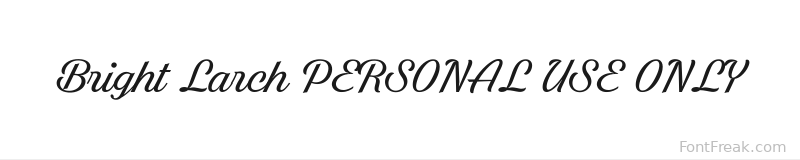
Bright Larch PERSONAL USE ONLY
Bright Larch PERSONAL USE ONLY by Mans Greback is a stunning script font that captures a whimsical and elegant aesthetic. This font features a unique blend of fluid, cursive strokes, which lend it a sense of personality and charm. The stroke weight varies, creating a dynamic contrast that adds visual interest. The spacing is thoughtfully designed to enhance readability while maintaining an artistic flair, making it suitable for a variety of creative applications. Decorative elements, such as the graceful curves and flourishes, make this font stand out and provide a touch of sophistication.
This font is ideal for several specific use cases. It shines in wedding invitations, where its romantic style can evoke emotions and set the tone for the special day. Bright Larch can also elevate movie posters, giving them a unique character that captures the audience's attention. Additionally, it works wonderfully for restaurant menus, adding an upscale touch that can entice diners. Content creators will find it perfect for social media graphics, where its eye-catching design can boost engagement. Graphic designers looking for a distinctive typeface will appreciate its versatility across various projects.
The target audience for Bright Larch includes graphic designers, small business owners, and content creators who are seeking a font that provides both elegance and personality. This font allows users to express creativity while enhancing their brand’s visual identity.
What truly sets the Bright Larch PERSONAL USE ONLY font apart is its ability to combine elegance with a playful spirit. It invites creativity and inspires users to explore new design possibilities. For anyone looking to add a touch of charm to their projects, the Bright Larch PERSONAL USE ONLY font free download offers an excellent option to consider.